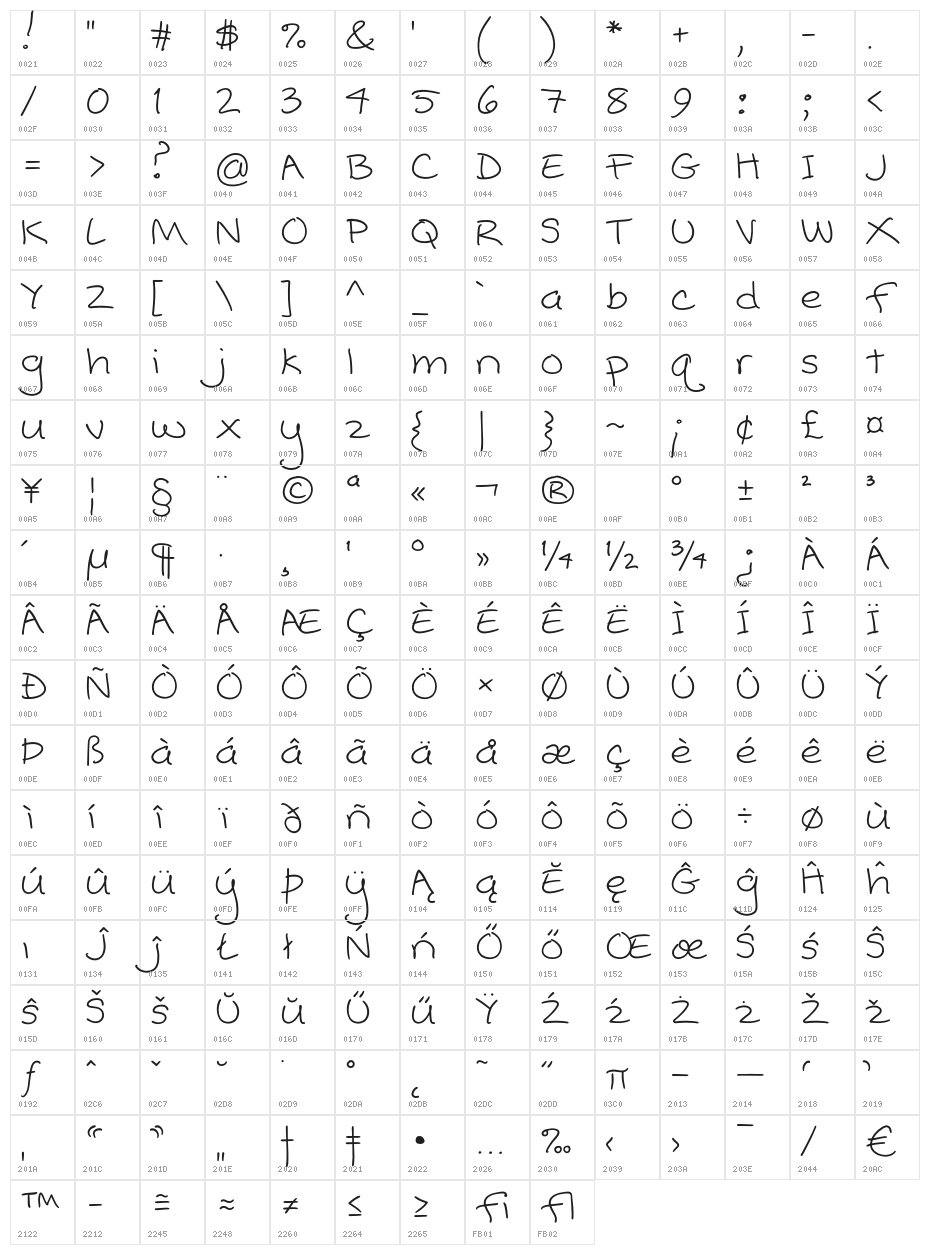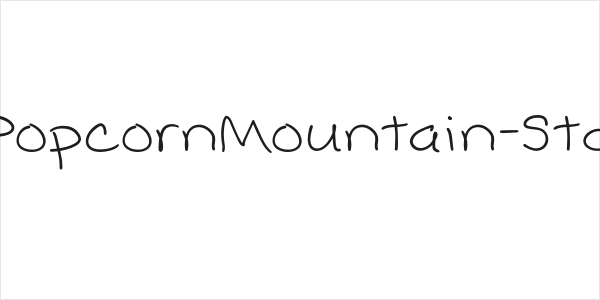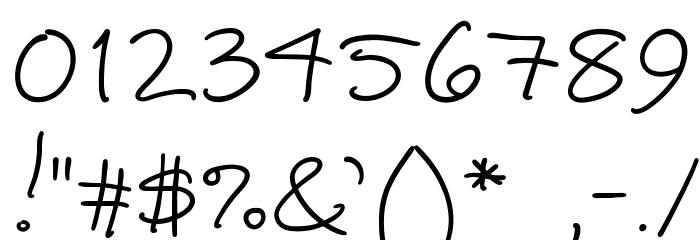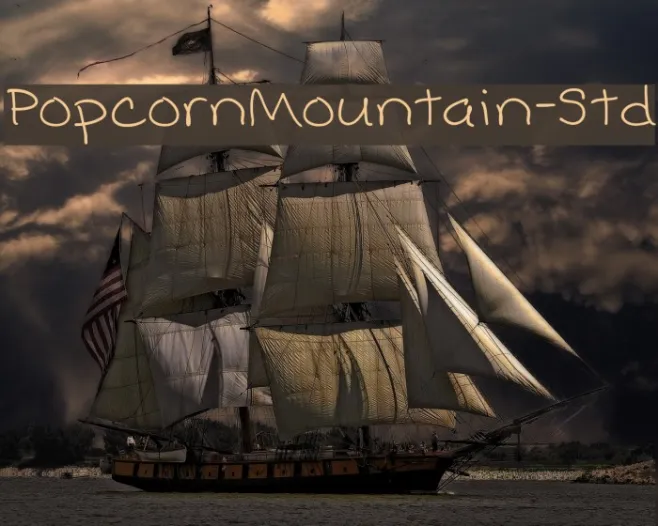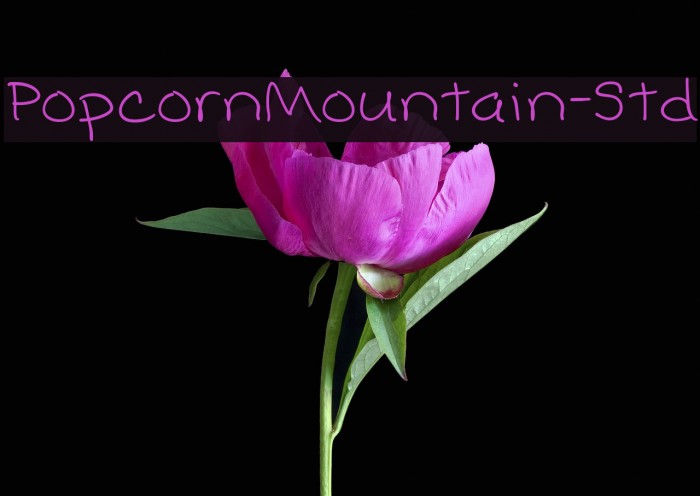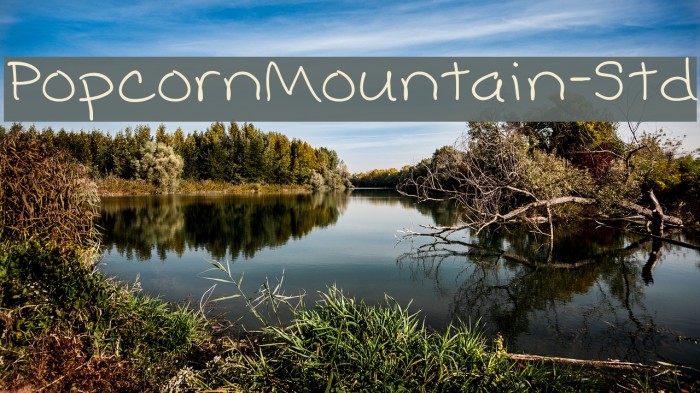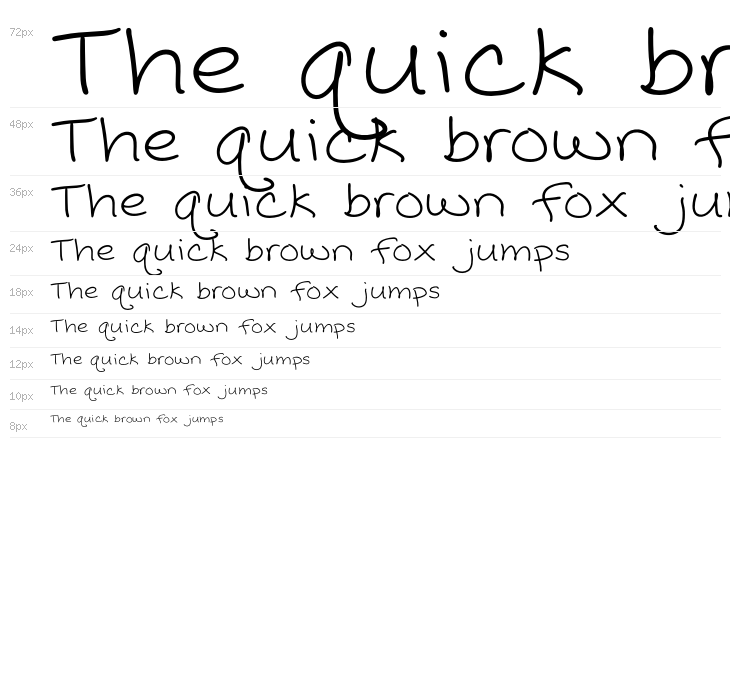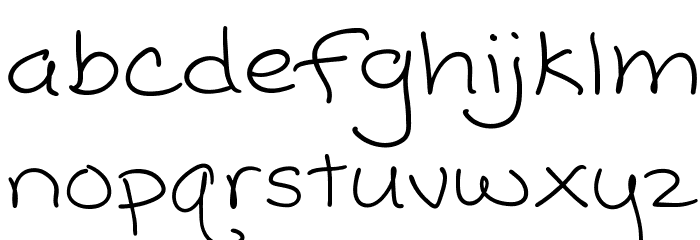
PopcornMountain-Std Font
PopcornMountain-Std Description
This font features a playful and casual handwritten style, characterized by its smooth, flowing lines and slightly irregular shapes. The uppercase letters are bold and confident, while the lowercase letters maintain a friendly and approachable appearance. The numerals are consistent with the overall style, offering a cohesive look across all characters. Special characters are well-integrated, maintaining the font's informal and relaxed aesthetic. The overall design is reminiscent of a personal touch, making it suitable for projects that require a human element.
| Proposed Projects | Ideal for greeting cards, invitations, children's books, and informal branding. |